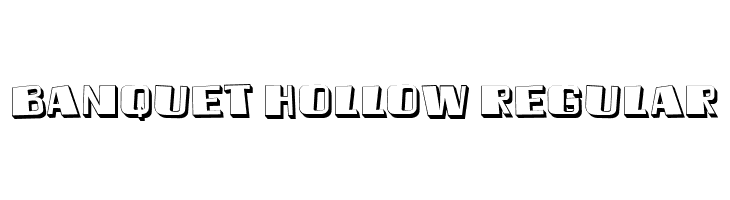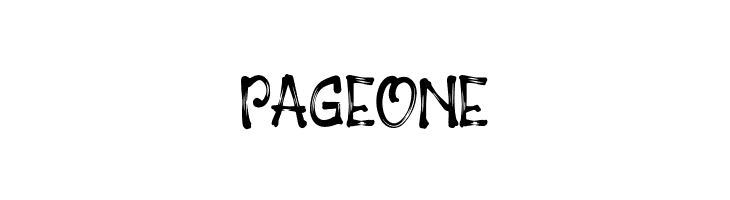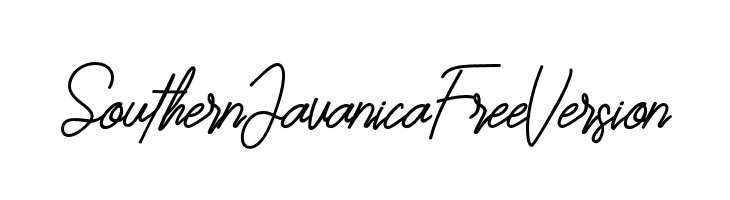
A bold, hollow font with a three-dimensional effect and consistent stroke width.
A bold, expressive script font with a playful, brush-like style.
A minimalist, geometric font with thin lines and a modern style.
An elegant script font with flowing curves and intricate loops, reminiscent of classic calligraphy.
A bold, Gothic-inspired font with sharp, angular edges and intricate detailing.
A thin, elegant script font with flowing cursive strokes.
A modern, cursive script font with fluid, connected letters.
A bold, expanded, and italicized font with a modern and dynamic style.
A flowing, cursive font with elegant, interconnected letters.
A playful and elegant script font with fluid, continuous strokes.